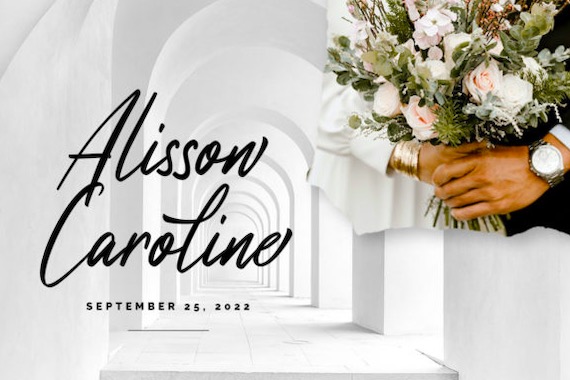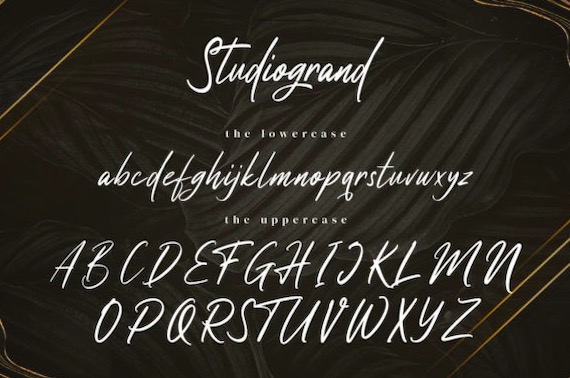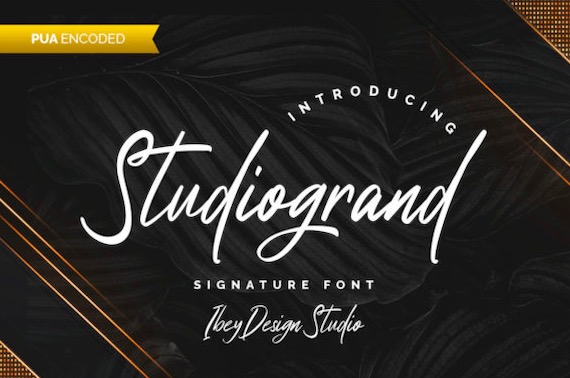
Studiogrand is a handwritten script font that was created and shared by Ibeydesign. So, it has a natural & friendly signature style and lets you achieve a lovely feel. It is inspired by its vintage style, besides, it’s PUA encoded which means you can access all of the glyphs and swashes with ease.
Studiogrand Handwritten Script Font